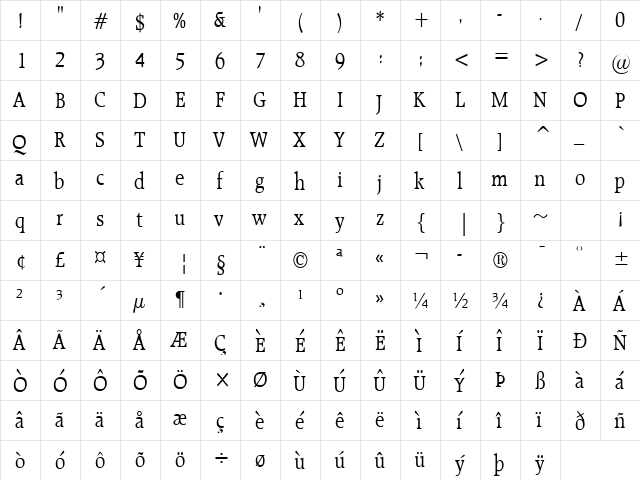
Rally CA Normal
Design Context for Rally Typeface
Rally takes a measured approach to typography — its balanced proportions and neutral character make it a reliable workhorse for both digital and print work.